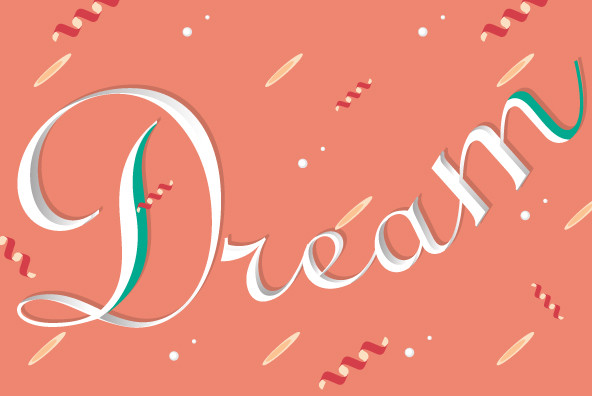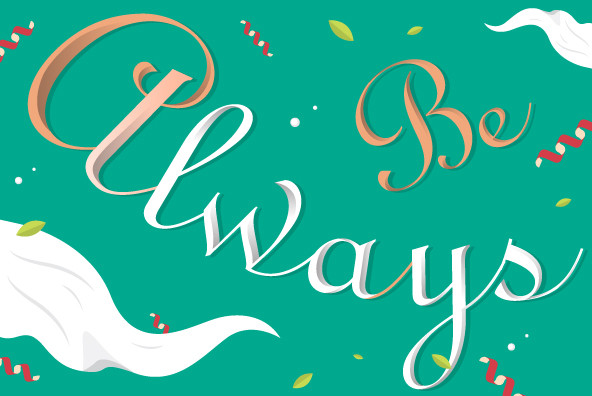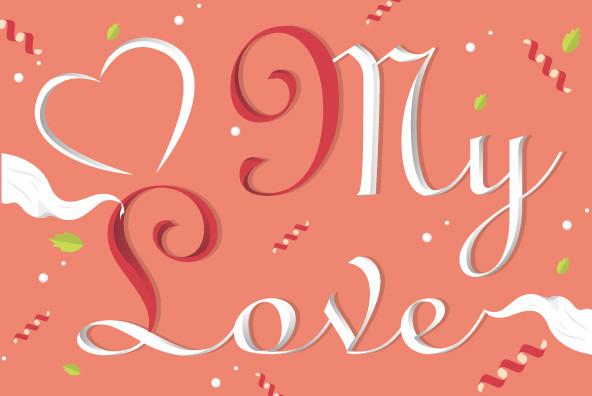
Ronde Script Font
Ronde Script
Ronde Script™ (Ronde meaning "A kind of script in which the heavy strokes are nearly upright, giving the characters when taken together a round look.") is based on the original design named Parisian Ronde released in 1878 by the Chappelle Foundry in Paris. Other versions of this script include Inland French Script, French Plate, and Typo Upright. Different type foundries tied to the releases of this design include Mayeur (Paris), Stephenson Blake (London), Bernhardt Brothers & Spindler (Chicago), and ATF (Elizabeth, NJ). Ronde Script has been a popular choice in designing wedding invitations and so many other formal announcements for over 130 years. Its very readable, formal and elegant with an antique or retro feel.